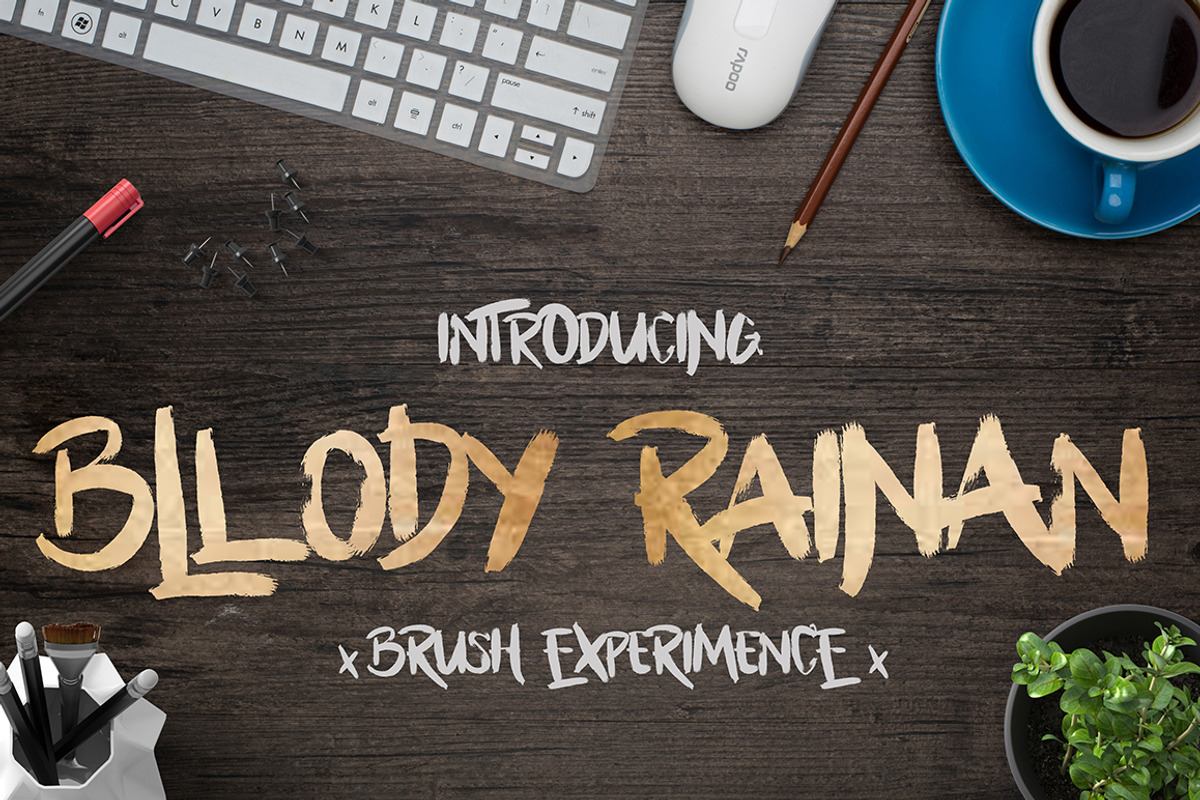
Bllody Rainan Font Free Download is a bold, edgy, and dramatic typeface designed to make a statement. With its sharp, jagged letterforms and gritty aesthetic, this font is perfect for horror-themed projects, music album covers, posters, and anything that needs a dark, intense vibe. Its unique, weathered design evokes a sense of mystery and rebellion, making it ideal for creating eye-catching designs with an alternative edge. Whether you're working on a spooky event, a rock band logo, or a thriller movie poster, Bllody Rainan Font Free Download lets you experiment with its powerful style in personal projects before purchasing a commercial license. Bring intensity and boldness to your designs with this striking, unconventional font.